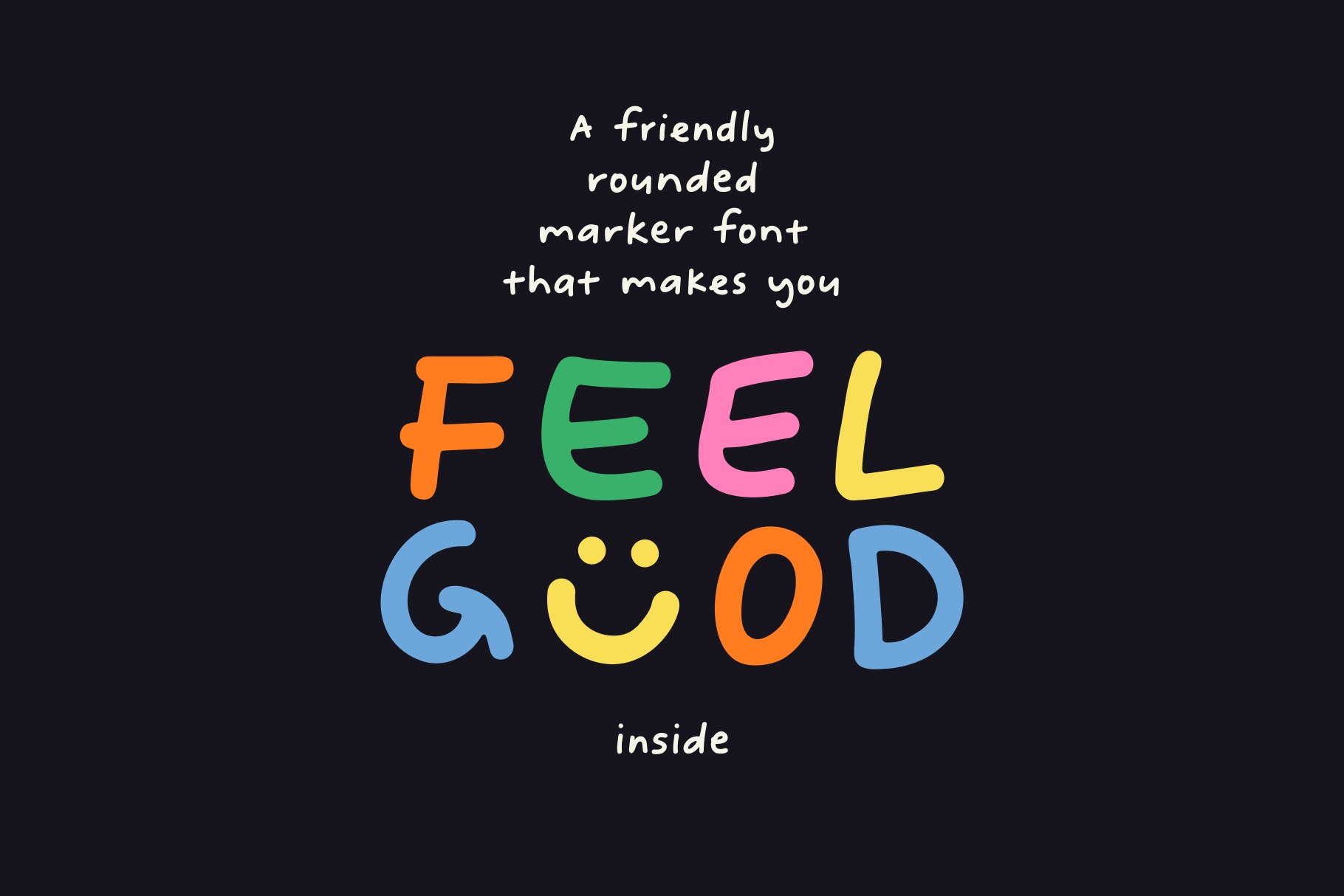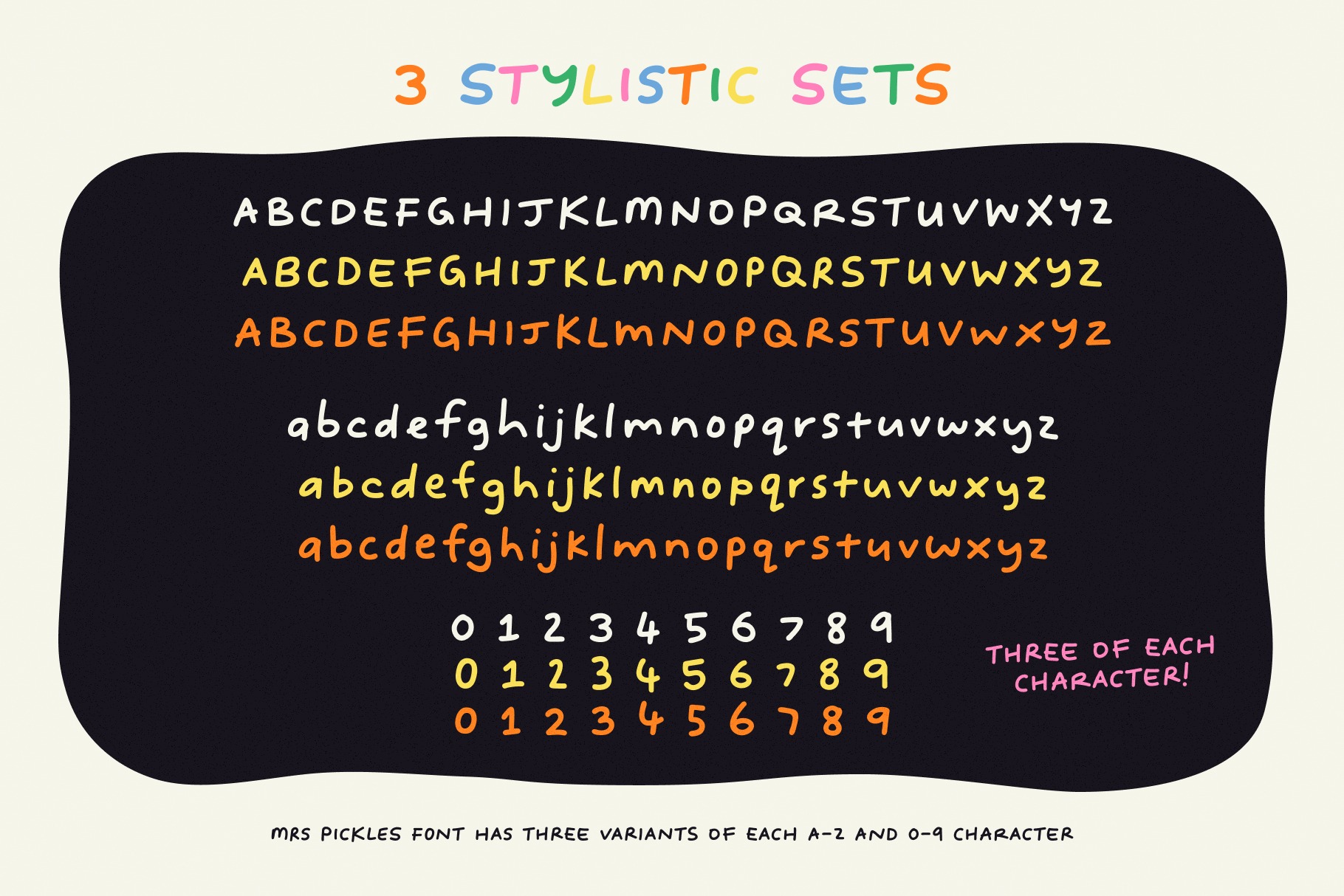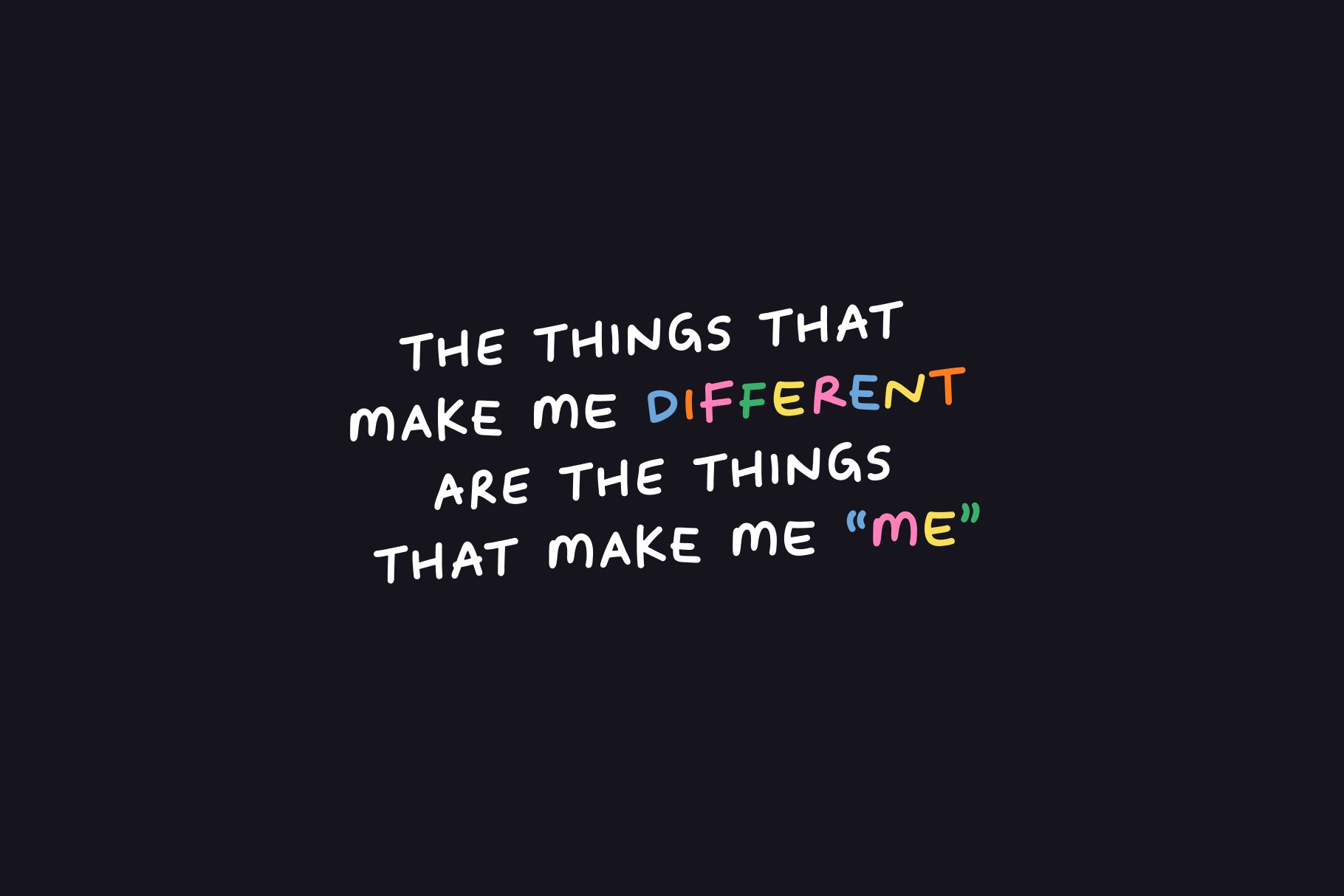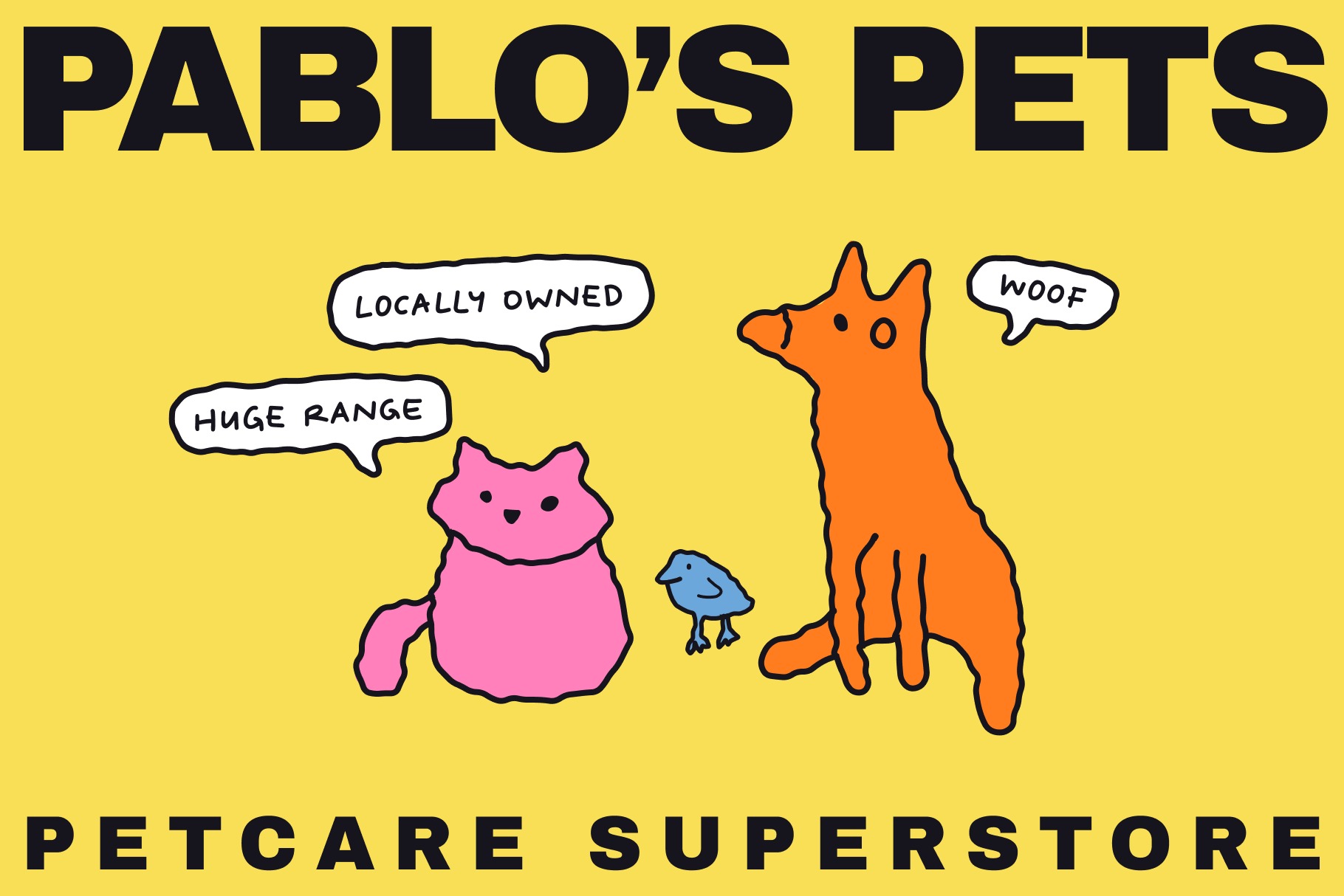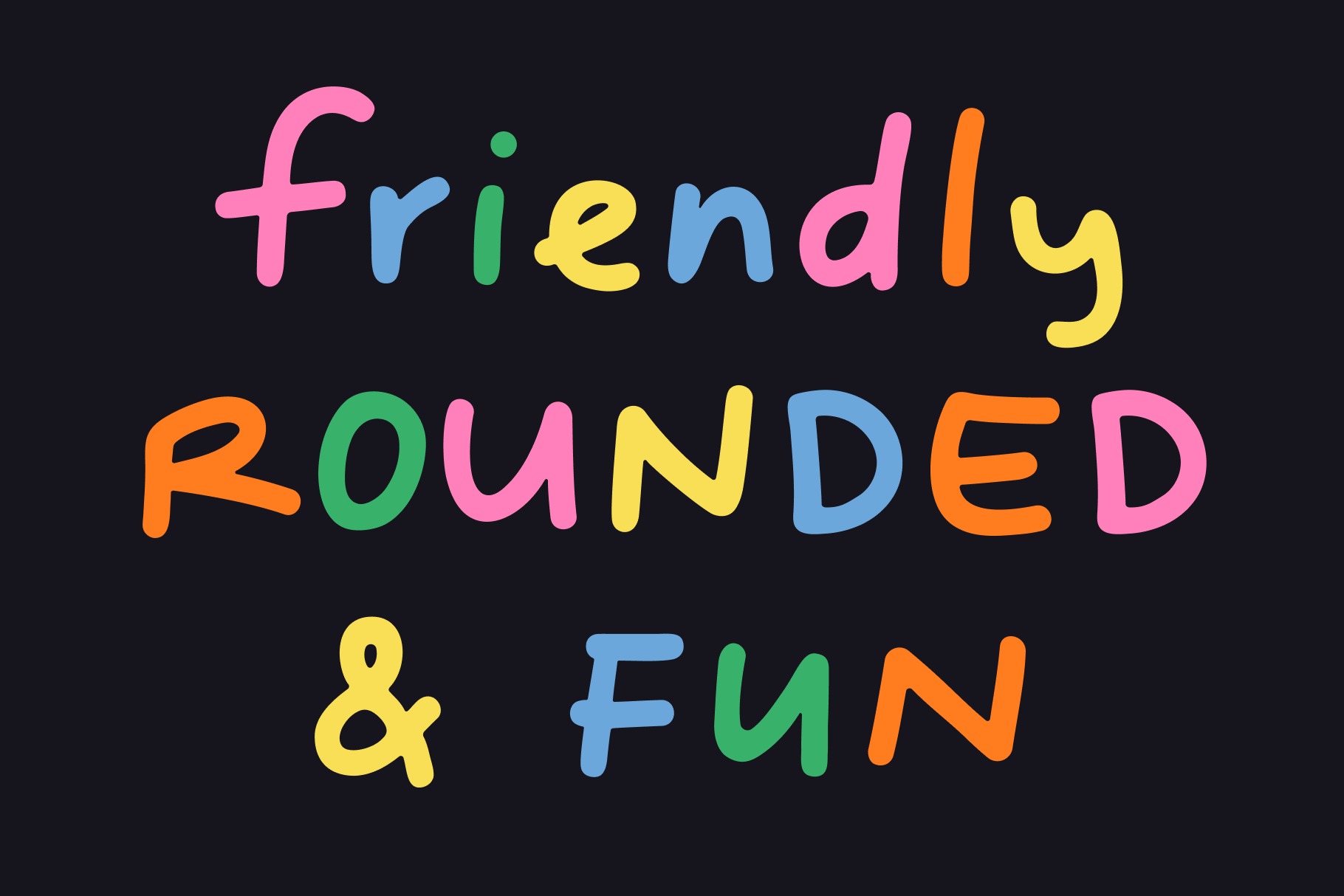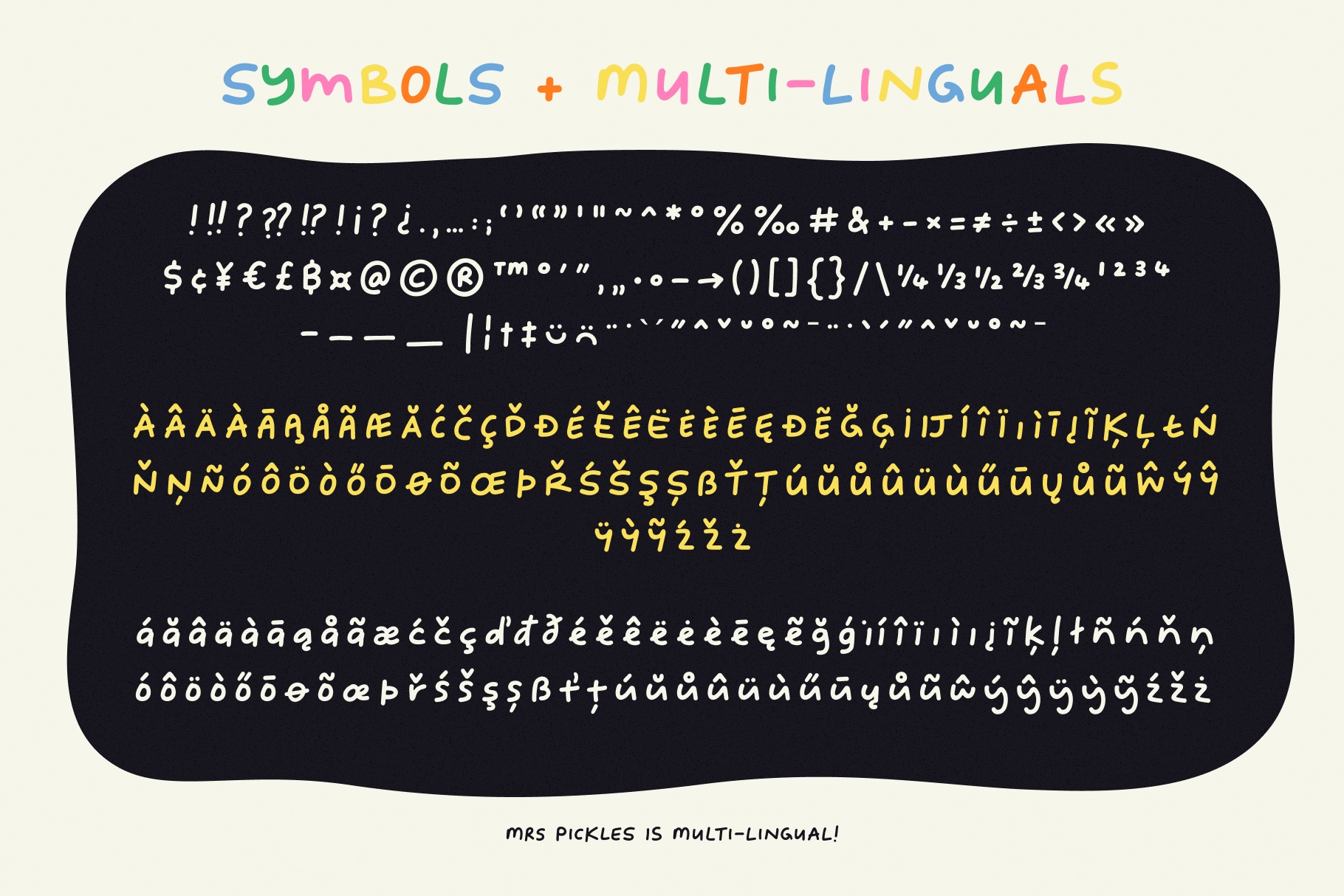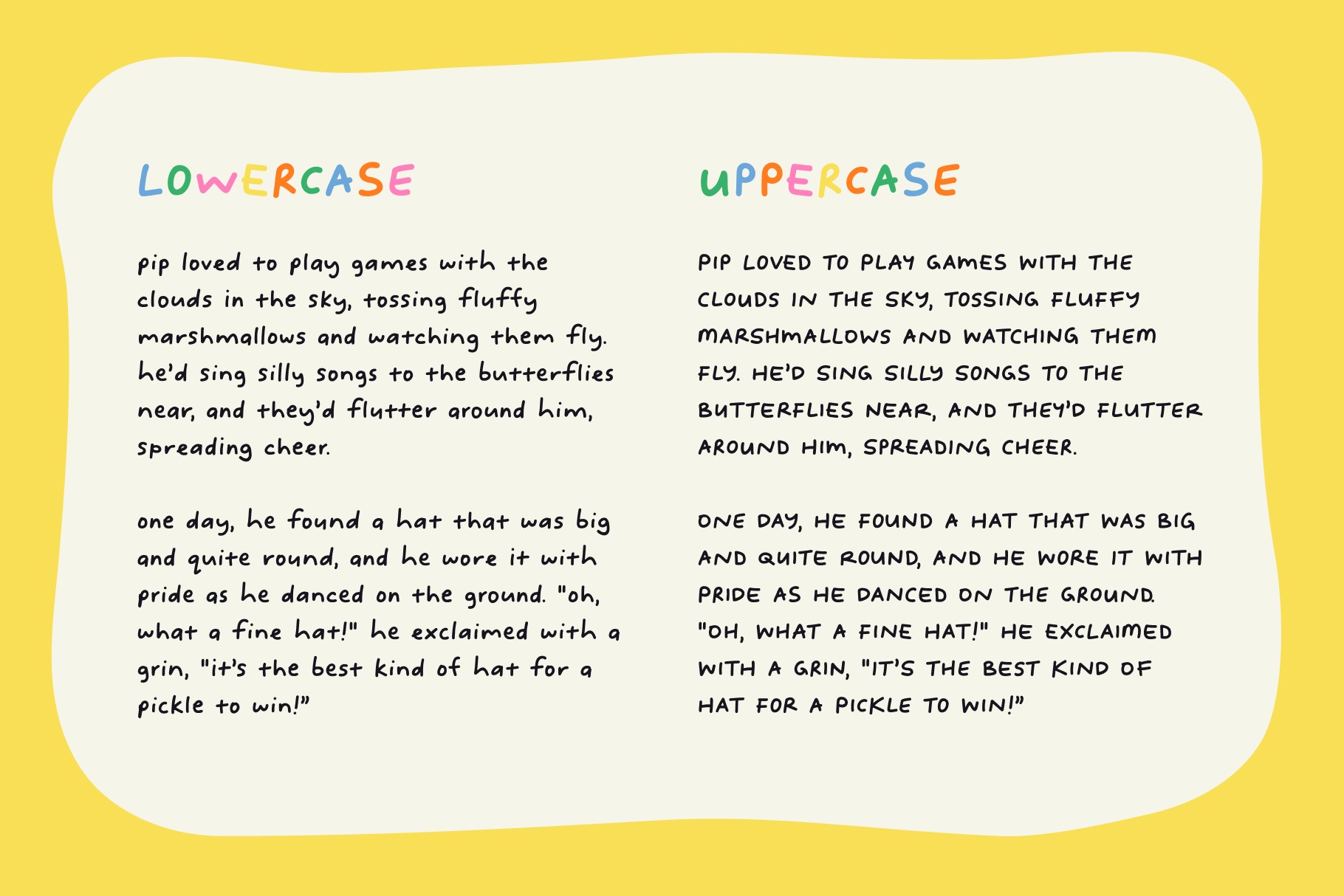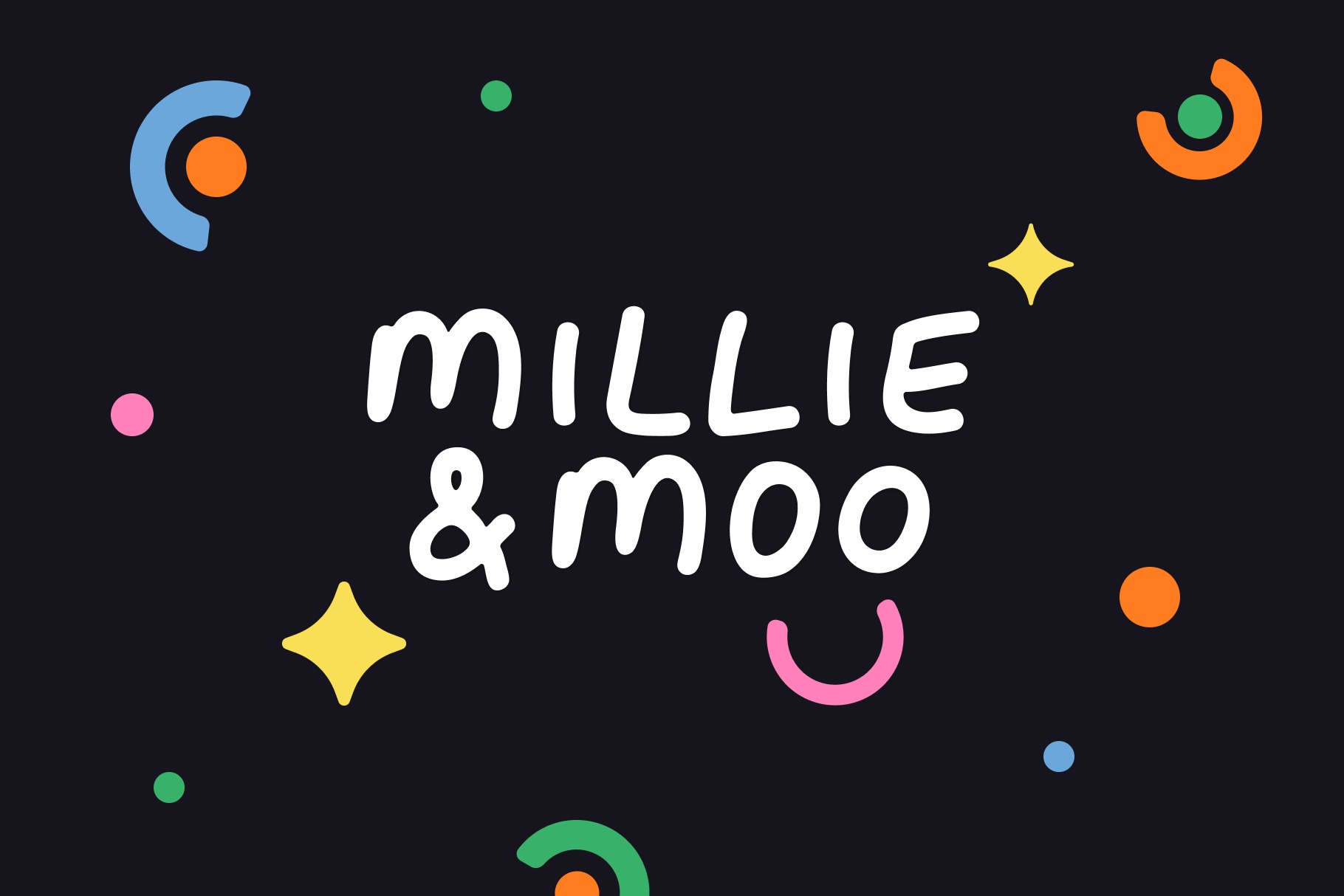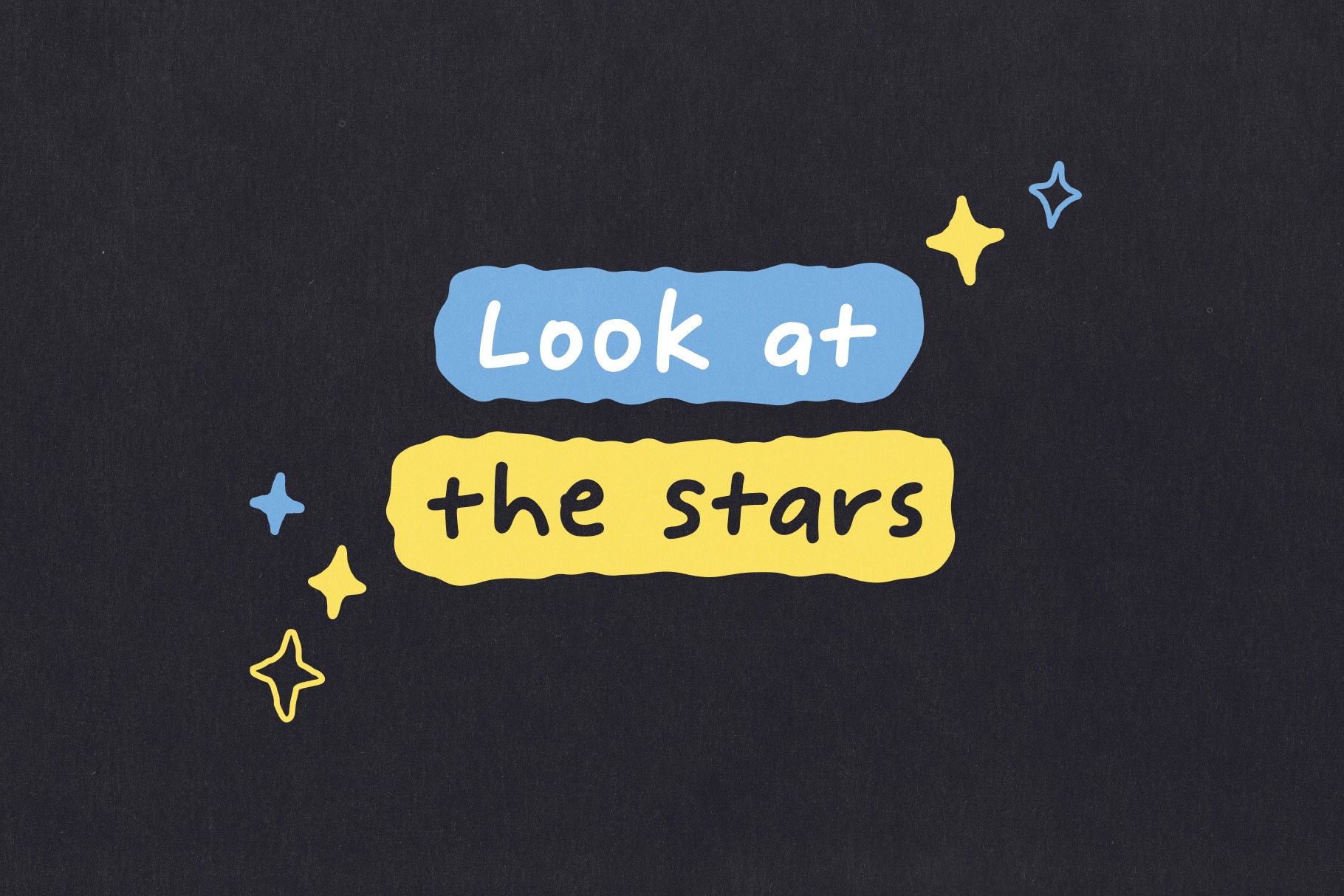
Mrs Pickles: A Friendly Handwritten Marker Font | TYPEHEIST Font Foundry
A cheerful, rounded marker font with playful charm. Perfect for packaging, quotes, kids products and feel-good design.